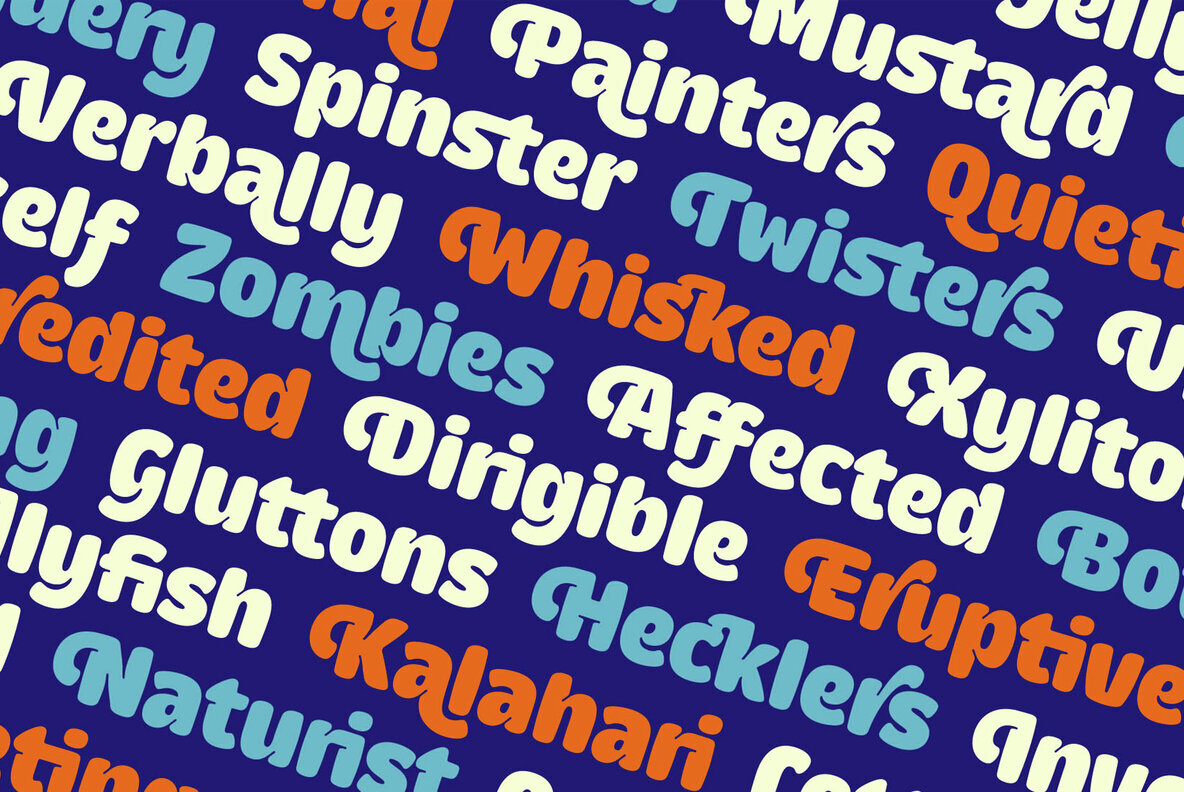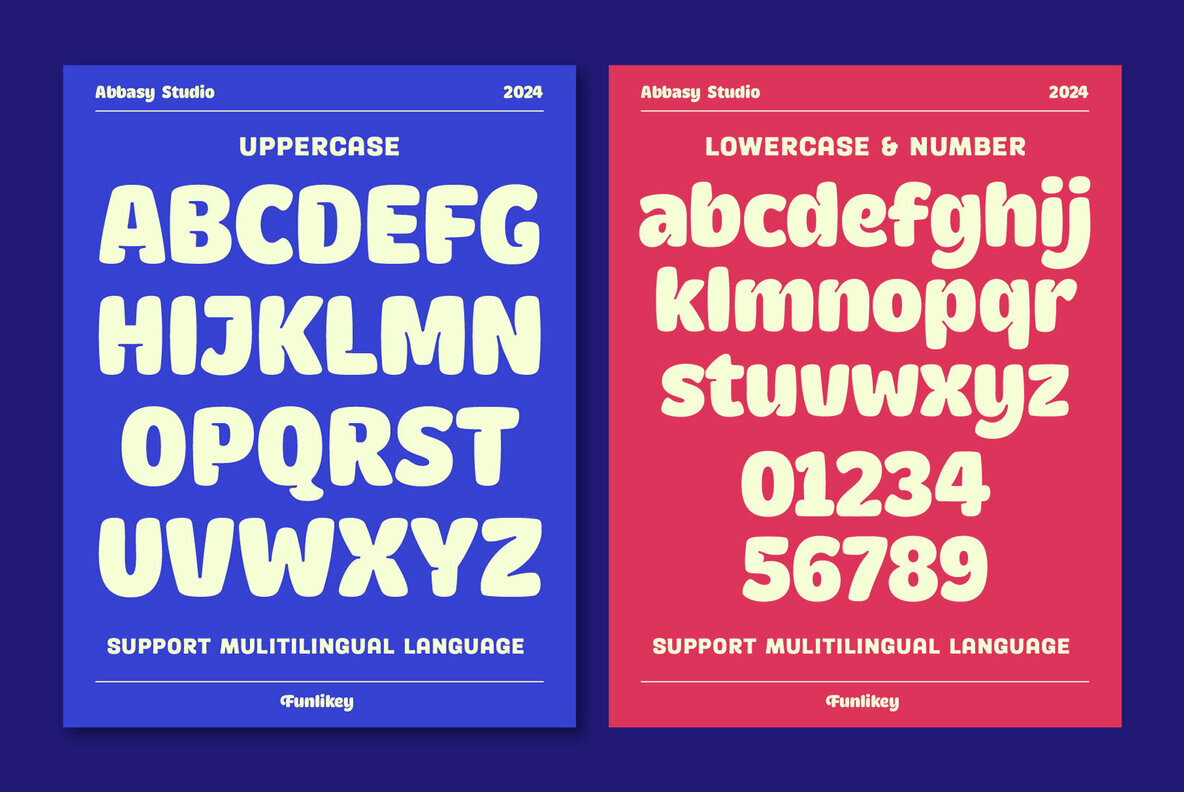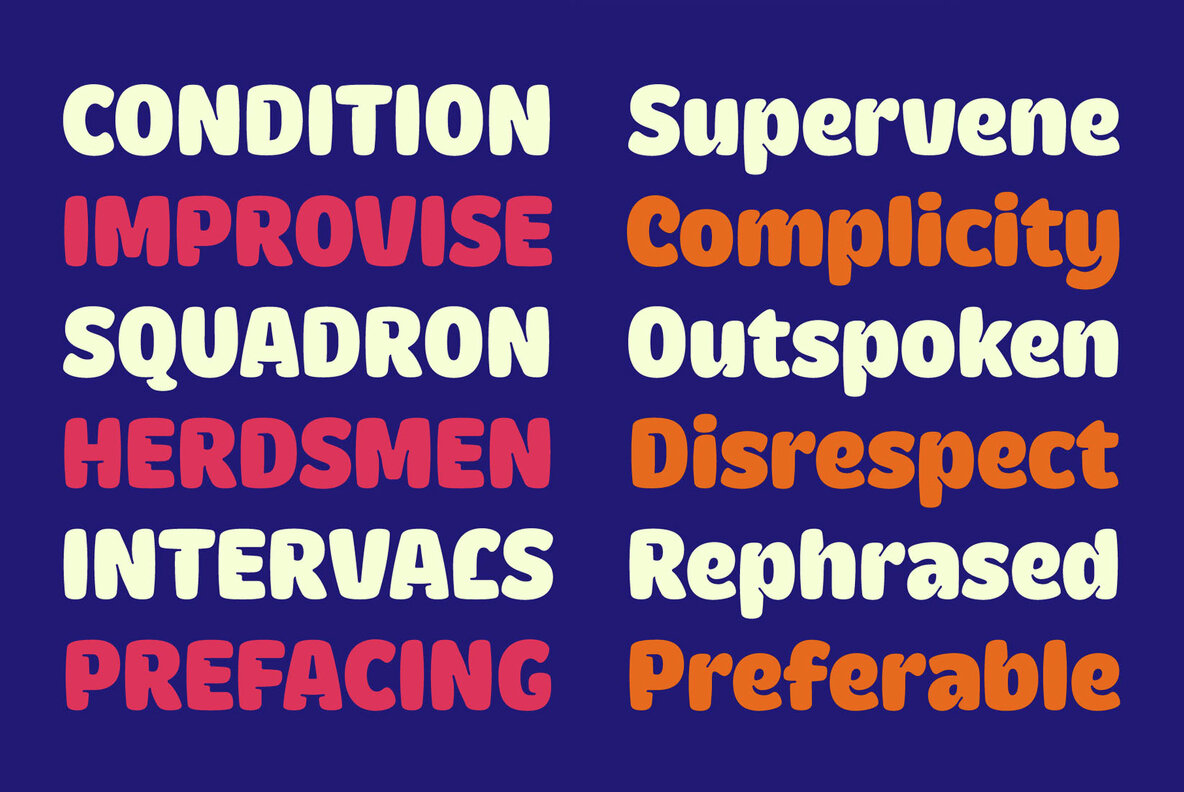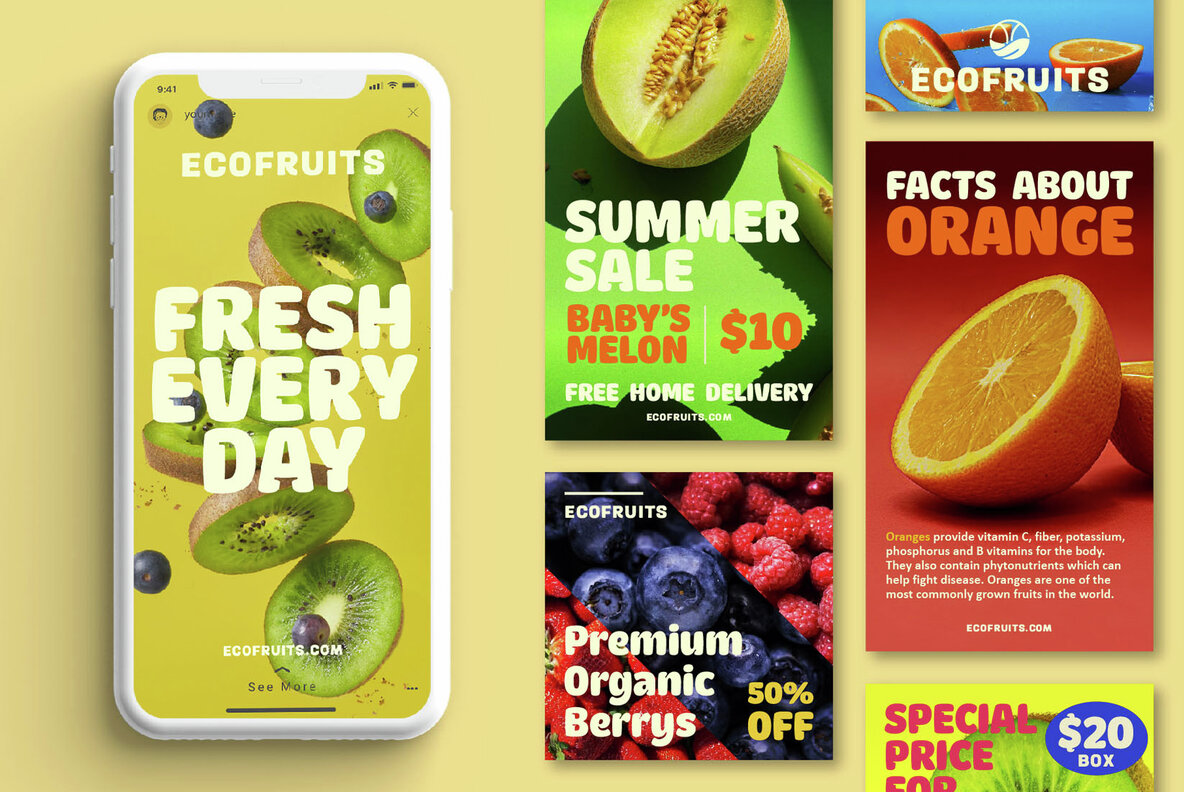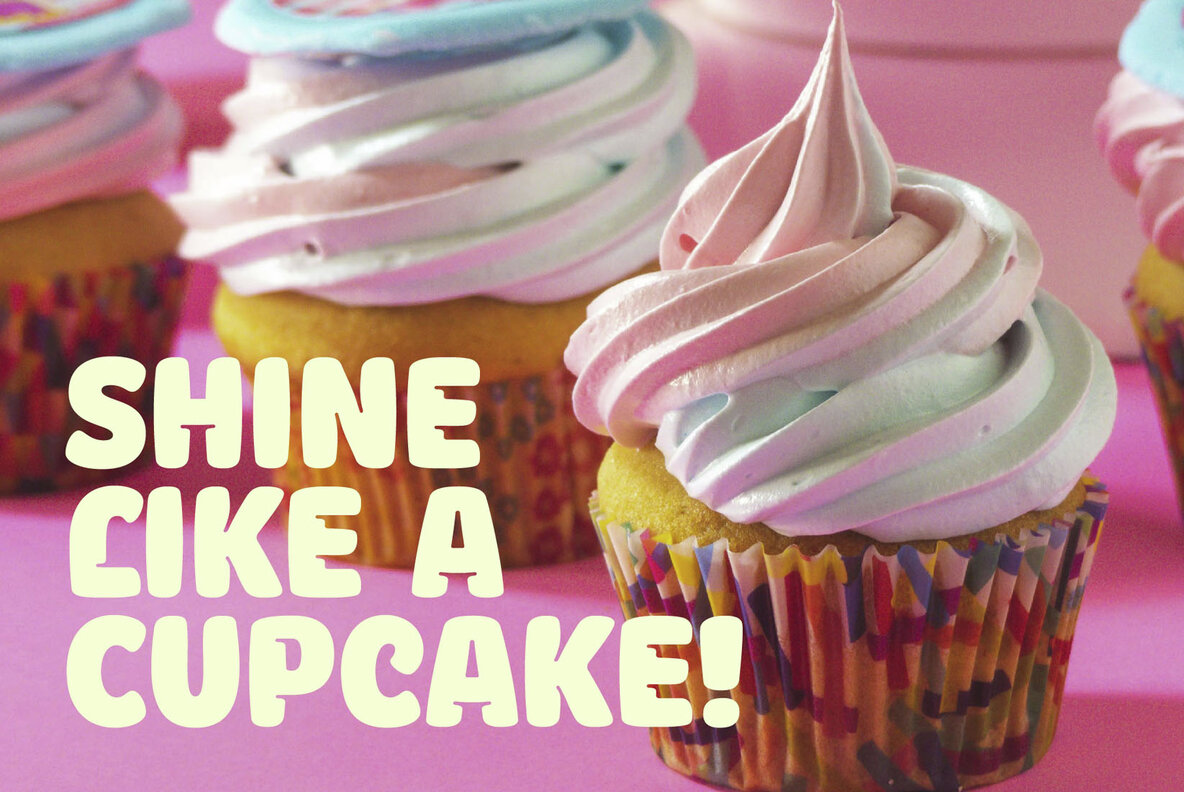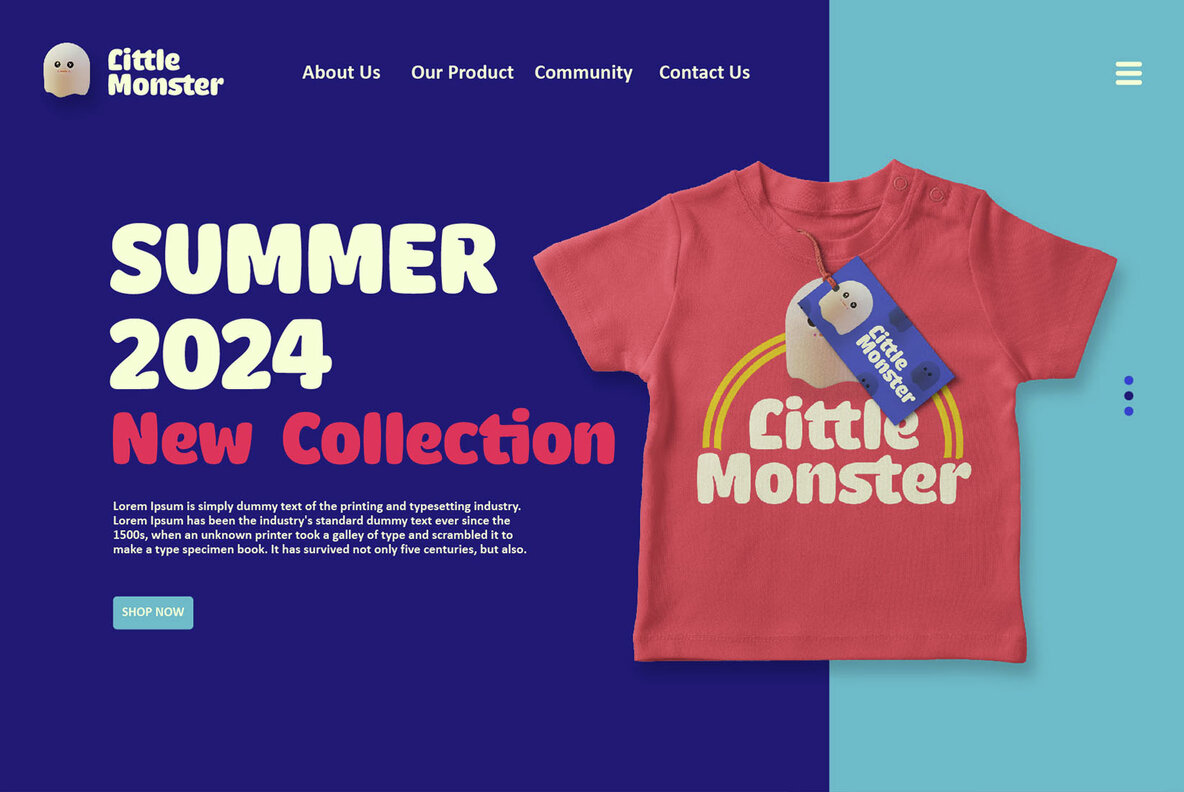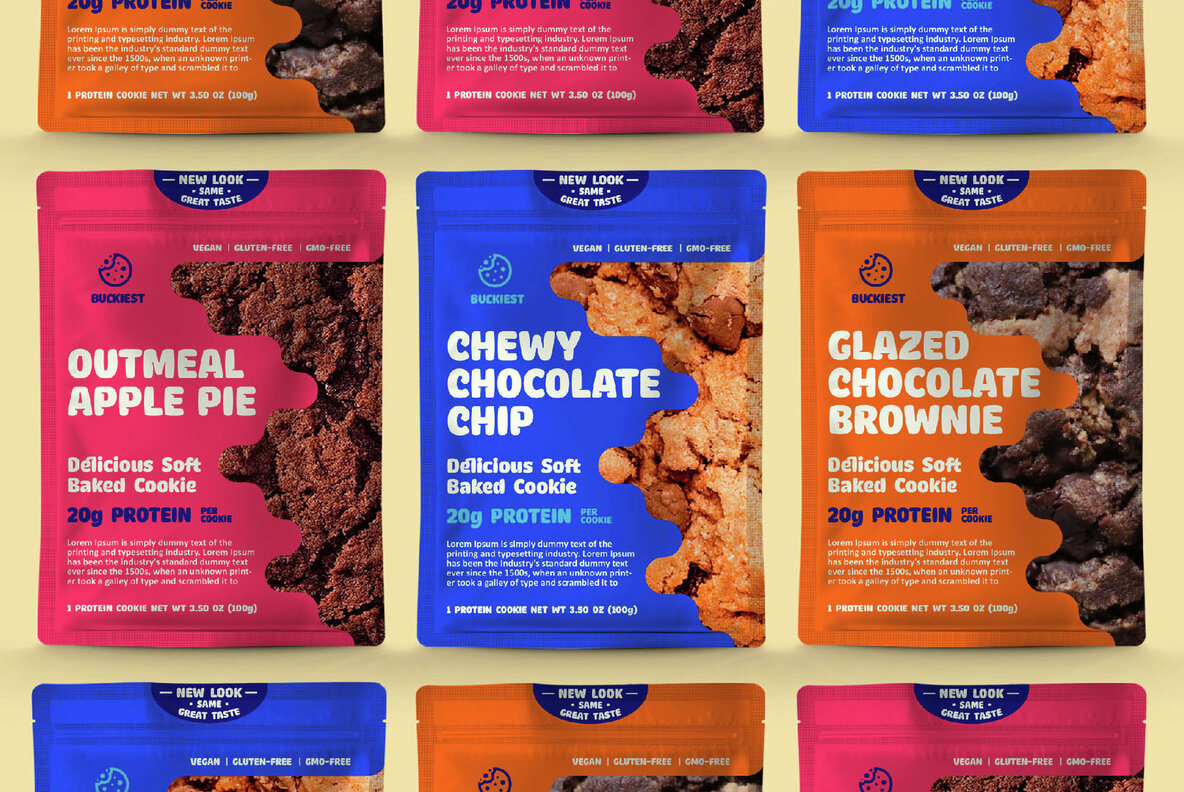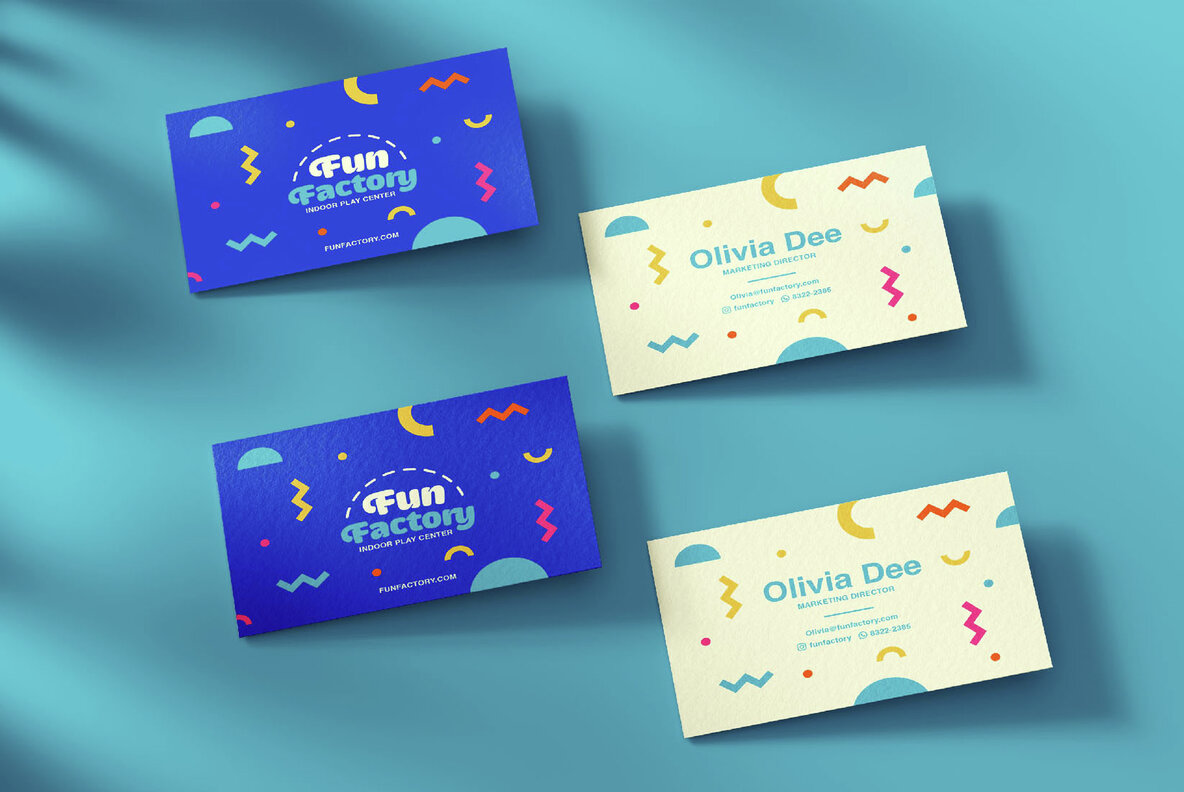
Funlikey Font
Funlikey Regular
Funlikey is a playful font with a unique, puffy, and bold appearance, making it ideal for grabbing attention in any design project. Its rounded corners and natural shape give it a quirky and endearing quality that will captivate your target audience.